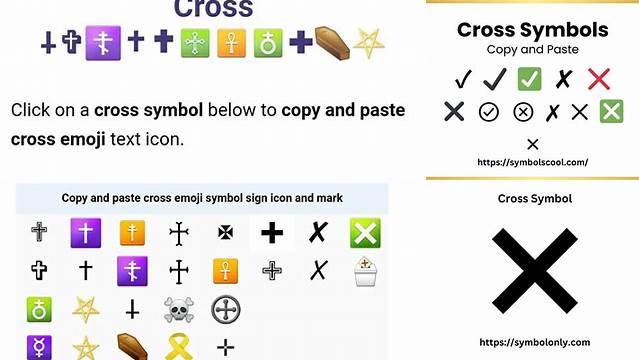
Fonts, Symbols: How To Copy & Paste A Cross
Hey guys! Ever found yourself needing a special symbol, like a cross or some fancy text, but struggled to find it or figure out how to use it? You're not alone! In today's digital world, fonts and symbols play a crucial role in everything from social media posts to professional documents. Whether you're trying to add a bit of flair to your Instagram bio or need a specific character for a report, understanding how to copy and paste symbols and work with different fonts is essential. This guide will dive deep into the world of fonts copy paste symbols cross, providing you with all the tips and tricks you need to become a pro. We'll explore how to find, copy, and paste various symbols, including the elusive cross mark, and how to use different fonts to enhance your text. So, let's get started and unlock the power of fonts copy paste symbols cross!
Understanding Fonts and Their Importance
Fonts are more than just the way text looks; they're a fundamental element of visual communication. The right font can convey a message just as effectively as the words themselves. Think about it: a playful, whimsical font might be perfect for a children's book, but it would look completely out of place in a formal legal document. The choice of font can influence the reader's perception of the text, affecting its credibility, readability, and overall impact. When we talk about fonts copy paste symbols cross, it's important to recognize that fonts also determine how symbols are displayed. Each font has its own unique set of characters, including special symbols like crosses, stars, and other decorative elements. Understanding the different types of fonts and their characteristics is the first step in mastering the art of text design. There are primarily two categories of fonts: serif and sans-serif. Serif fonts, like Times New Roman, have small decorative strokes at the ends of the letters, giving them a classic and formal appearance. Sans-serif fonts, such as Arial, lack these strokes and have a cleaner, more modern look. Beyond these, there are also script fonts, which resemble handwriting, and display fonts, which are designed for decorative purposes. Choosing the right font depends on the context and the message you want to convey. For example, in a document where you want to include a cross symbol, the font you select will determine how that cross looks. Some fonts might have a simple, clean cross, while others might have a more ornate or stylized version. This is why understanding the nuances of different fonts is crucial when you're working with fonts copy paste symbols cross. It's not just about finding a symbol; it's about ensuring that the symbol fits aesthetically and functionally within your text.
Finding Symbols: The Quest for the Cross and Beyond
Embarking on the quest for that perfect symbol, like a cross, can sometimes feel like searching for a hidden treasure. But fear not, intrepid typographers! The digital world is teeming with resources and methods to help you find exactly what you need. Whether you're looking for a religious cross, a mathematical symbol, or a decorative glyph, there are several ways to uncover these hidden gems. One of the most straightforward methods is using character maps or symbol libraries that are built into your operating system. Windows, for instance, has a Character Map application, while macOS has a Character Viewer. These tools display all the characters and symbols available in a particular font, allowing you to easily browse and select the one you need. Imagine you're writing a blog post about religious symbols and need to include a cross. Instead of trying to create one using keyboard characters, you can simply open the Character Map, select a font that has a cross symbol you like, and copy it directly into your document. Beyond these built-in tools, there are also numerous online resources dedicated to symbols and special characters. Websites like Unicode-table.com and CopyChar.cc offer vast collections of symbols, organized by category and easily searchable. These websites are particularly useful if you're looking for a specific type of cross or a symbol that isn't readily available in standard fonts. For example, you might find different variations of the cross, such as the Latin cross, the Greek cross, or the Celtic cross, each with its own unique appearance. When searching for symbols, it's also helpful to understand Unicode, the universal character encoding standard. Unicode assigns a unique number to every character and symbol, ensuring that they are displayed consistently across different platforms and devices. This is especially important when you're dealing with less common symbols, as using a Unicode-compliant font ensures that the symbol will appear correctly for anyone reading your text. So, whether you're a seasoned designer or just someone looking to spice up their social media posts, knowing how to find symbols is a valuable skill. With the right tools and techniques, you can easily add that perfect cross or any other symbol to your digital creations.
Copying and Pasting Symbols: The Art of Digital Transfer
Once you've located that elusive symbol, like the perfect cross, the next step is to master the art of copying and pasting. This seemingly simple process is the key to seamlessly incorporating symbols into your text, whether you're crafting an email, designing a presentation, or updating your website. The fundamental technique for copying and pasting symbols is the same as copying and pasting text: select the symbol, press Ctrl+C (or Cmd+C on a Mac) to copy, and then press Ctrl+V (or Cmd+V) to paste. However, there are a few nuances to be aware of, especially when dealing with symbols from different sources. When copying a symbol from a character map or a website, it's crucial to ensure that the font you're using in your destination document supports that symbol. If the font doesn't include the symbol, it might appear as a blank box or a different, unexpected character. This is where understanding font compatibility comes into play. For example, if you copy a decorative cross from a website that uses a specialized font, you'll want to make sure that your document is also using a font that includes that cross symbol. Otherwise, your cross might not display correctly. Another important consideration is the format of the copied symbol. Some symbols are copied as text, while others are copied as images. Text-based symbols are generally preferable because they can be easily resized and styled without losing quality. Image-based symbols, on the other hand, might become pixelated if you enlarge them. To ensure you're copying a text-based symbol, try pasting it into a plain text editor like Notepad (on Windows) or TextEdit (on Mac). If the symbol appears correctly in the plain text editor, it's a text-based symbol. In some cases, you might need to use a different method to copy and paste symbols, such as using the Alt code (on Windows) or the Option key (on Mac). Alt codes are numerical codes that correspond to specific characters, while the Option key can be used in combination with other keys to type symbols directly from your keyboard. These methods can be particularly useful for frequently used symbols, like the cross, as they provide a quick and efficient way to insert them into your text. So, whether you're copying a simple cross or a complex mathematical symbol, mastering the art of digital transfer is essential for ensuring that your symbols appear correctly and consistently across all your documents and platforms.
Using the Cross Symbol: Meanings and Applications
The cross symbol, a seemingly simple intersection of two lines, carries a profound weight of meaning and history. Its significance spans cultures and centuries, making it a powerful symbol with diverse applications. Understanding the various meanings and contexts in which the cross is used is crucial for employing it effectively in your writing and designs. The most widely recognized meaning of the cross is its association with Christianity. As the symbol of Jesus Christ's crucifixion, the cross represents sacrifice, redemption, and faith. In Christian art, architecture, and literature, the cross is a ubiquitous symbol, serving as a visual reminder of the core tenets of the religion. However, the cross is not solely a Christian symbol. Variations of the cross appear in other religions and cultures, often with different meanings. For example, the Egyptian Ankh, a cross with a loop at the top, symbolizes life and immortality. The Celtic cross, with its distinctive circle surrounding the intersection, is a symbol of Celtic heritage and spirituality. Even within Christianity, there are numerous forms of the cross, each with its own significance. The Latin cross, with its longer vertical bar, is the most common Christian cross. The Greek cross, with four equal arms, is often used in Eastern Orthodox Christianity. The Russian cross has three horizontal bars, each representing a different aspect of the crucifixion. When using the cross symbol, it's important to be mindful of its context and intended audience. In religious settings, the cross carries deep spiritual meaning and should be treated with reverence. In other contexts, the cross can be used to convey a sense of tradition, heritage, or even a connection to the past. For example, a Celtic cross might be used in a design to evoke a sense of Irish or Scottish culture. Beyond its religious and cultural meanings, the cross symbol also has practical applications. It's used in mathematics as a symbol for addition and multiplication. It's used in cartography to mark locations on maps. It's even used in everyday language as a shorthand for the word "cross," as in "crossroads" or "crosswalk." So, whether you're writing a theological treatise, designing a logo, or simply trying to add a symbol to your text, understanding the multifaceted meanings and applications of the cross is essential for using it effectively and respectfully.
Troubleshooting Font and Symbol Issues
Navigating the world of fonts copy paste symbols cross can sometimes feel like traversing a digital minefield. You've found the perfect cross symbol, copied it with care, but alas, it appears as a dreaded blank square or an entirely different character in your document. Fear not, fellow typographers! These font and symbol snafus are common, and with a little troubleshooting know-how, you can conquer these challenges and ensure your symbols display correctly. One of the most frequent culprits behind symbol display issues is font incompatibility. As we discussed earlier, not all fonts contain the same set of characters and symbols. If you've copied a cross symbol from a website that uses a specialized font, and your document is using a different font that doesn't include that cross, the symbol will likely appear as a placeholder. The solution? Check the font of the symbol's source and ensure your document is using a font that supports it. Many standard fonts, like Arial Unicode MS and Segoe UI Symbol, include a wide range of symbols, making them good choices for general use. Another common issue arises when copying and pasting symbols from different applications or platforms. Sometimes, the formatting of the symbol gets lost in translation, resulting in display errors. To avoid this, try pasting the symbol into a plain text editor first, such as Notepad (on Windows) or TextEdit (on Mac). This will strip away any extraneous formatting and allow you to copy the symbol as plain text, which is more likely to display correctly in your final document. If you're still encountering problems, consider using a different method for inserting the symbol, such as the character map or Alt codes (on Windows). These methods often bypass formatting issues and ensure that the symbol is inserted directly into your text. Occasionally, font and symbol problems can stem from corrupted font files or outdated software. If you suspect a font file is corrupted, try reinstalling it. If your operating system or application is outdated, updating it to the latest version might resolve compatibility issues. Remember, patience and persistence are key when troubleshooting font and symbol problems. Don't be afraid to experiment with different fonts, methods, and settings until you find the solution that works for you. With a little perseverance, you'll be a font and symbol master in no time!
Tips and Tricks for Working with Fonts and Symbols
Becoming a font and symbol aficionado involves more than just finding and copying a cross; it's about mastering the art of typography and understanding how to use fonts and symbols effectively. Here are some tips and tricks to elevate your font and symbol game:
- Embrace Font Pairing: Just like a well-coordinated outfit, fonts can work together to create a harmonious and visually appealing design. Try pairing a serif font for headings with a sans-serif font for body text, or vice versa. This creates contrast and readability. For instance, if you're using a decorative font for a heading that includes a cross symbol, pair it with a simpler font for the body text to ensure the symbol stands out without overwhelming the design.
- Use Unicode Characters: Unicode is the universal standard for encoding characters and symbols, ensuring they display correctly across different platforms and devices. When possible, use Unicode characters for your symbols, especially less common ones like specialized cross symbols, to avoid compatibility issues.
- Explore Font Families: Many fonts come in families, which include variations in weight (e.g., light, regular, bold), style (e.g., italic, oblique), and width (e.g., condensed, expanded). Using different variations within the same font family can add visual interest and hierarchy to your text, especially when incorporating symbols like the cross.
- Consider Cultural Context: Symbols, especially the cross, can have different meanings in different cultures and religions. Be mindful of the context in which you're using a symbol and ensure it's appropriate for your audience.
So there you have it, guys! We've journeyed through the fascinating world of fonts copy paste symbols cross, from understanding the importance of fonts to mastering the art of copying and pasting symbols, including the powerful and multifaceted cross. We've explored how to find symbols, troubleshoot common issues, and even delved into the cultural significance of the cross symbol. By now, you should be well-equipped to navigate the digital landscape with confidence, armed with the knowledge to choose the right fonts, incorporate symbols seamlessly, and express yourself creatively and effectively. Remember, fonts and symbols are more than just decorative elements; they are powerful tools for communication and expression. Whether you're designing a website, creating a presentation, or simply adding a personal touch to your social media posts, understanding how to work with fonts copy paste symbols cross is an invaluable skill. So, go forth and experiment, explore, and let your typography skills shine! And the next time you need that perfect cross or any other symbol, you'll know exactly where to find it and how to use it. Happy creating!